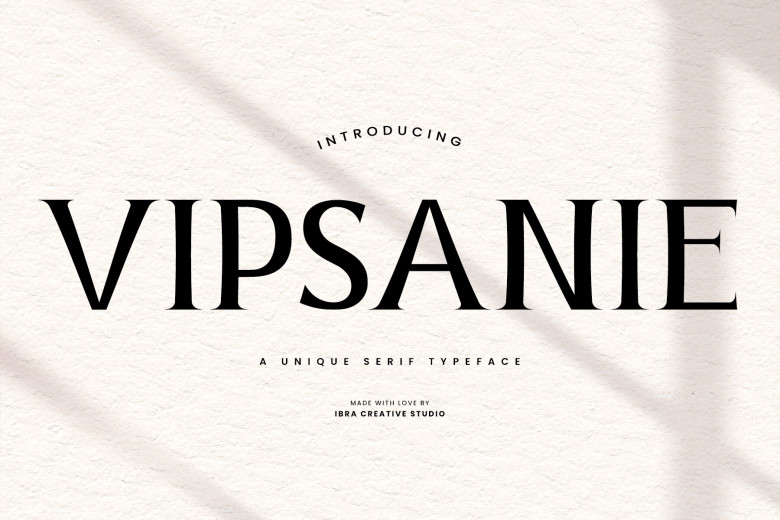
Vipsanie Font
Vipsanie is an Unique Serif typeface with no compare; it departs from the standard look to create a fresh new perspective of fonts. Its letterforms are a combination of tradition and advanced technology of the shapes of the serifs. Every figure presented in Vipsanie is thoroughly developed, and their depictive silhouettes and performance some delicate finesses and inversed perspectival lines that activate the viewers’ desire and impel them to decode the typographic innovations.
Vipsanie Serif Font